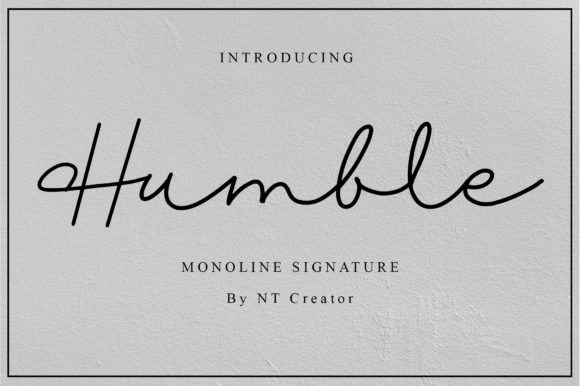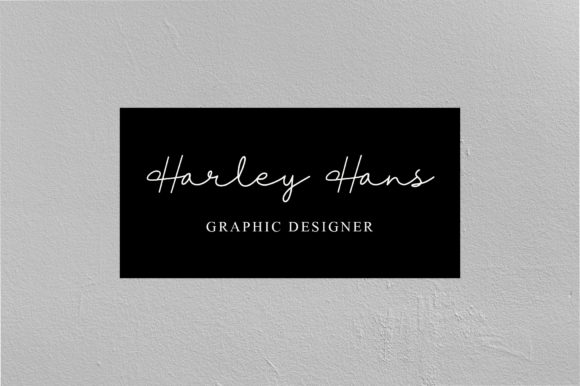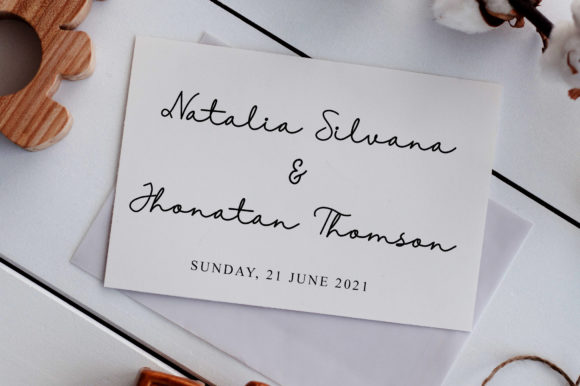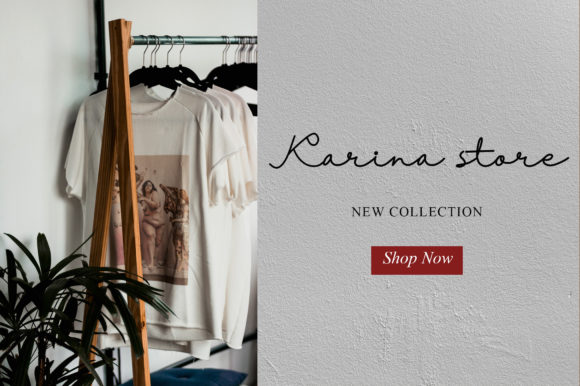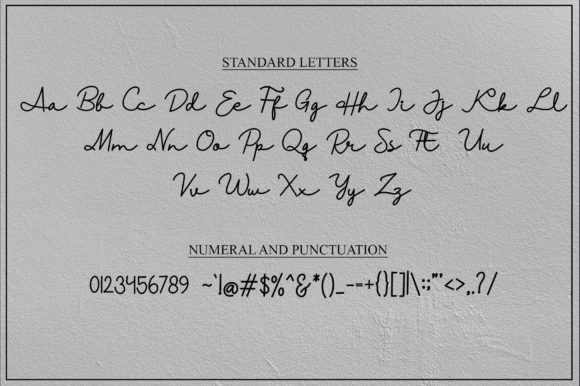
Humble Font
About Humble Font
Humble is a sweet, flowing and thin lettered script font. It can be used on a variety of design ideas. Fall in love with its incredibly versatile style and use it to create gorgeous wedding invitations, beautiful stationary art, eye-catching social media posts, and much more!